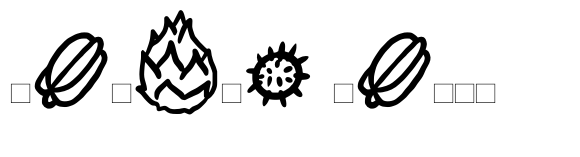
FRUiTZ
por Abo Daniel
La familia tipográfica FRUiTZ fue diseñada por Abo Daniel y publicada por Abo Daniel. FRUiTZ contiene 3 estilos y opciones de paquete familiar.
Introducing FRUITZ, a Juicy Bold Font. This font family is great for apparel, branding, logo, magazine, quotes, packaging, advertising, and more, that need cheerful feel. It come in uppercase, lowercase, with punctuations, symbols & numerals. Also support multilingual and already PUA encoded. The Fruitz Doodles are completing this font family.